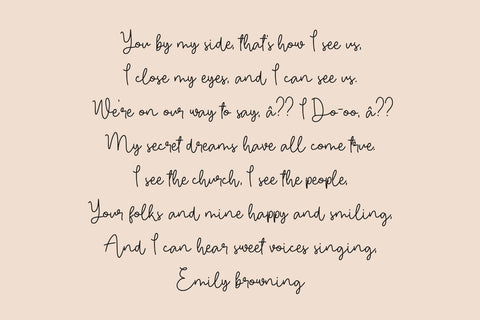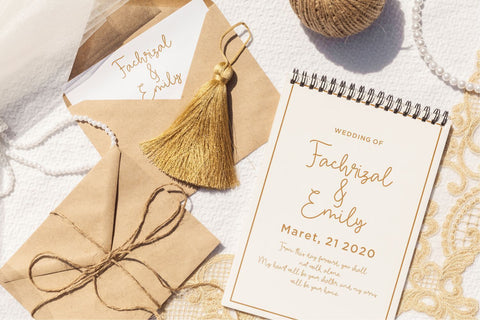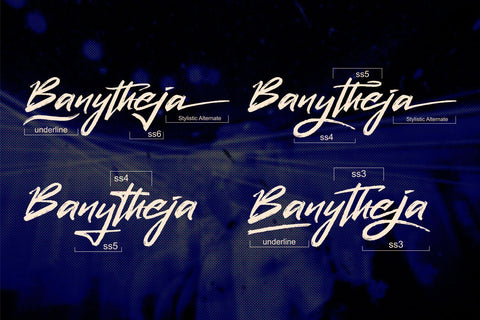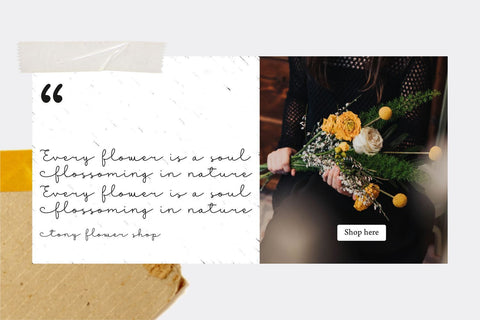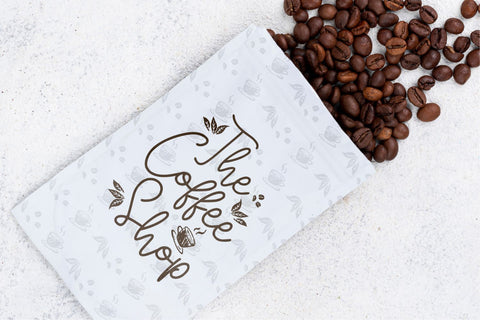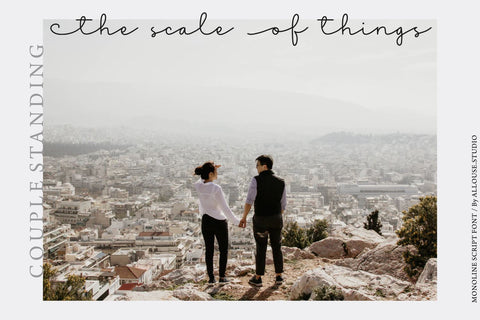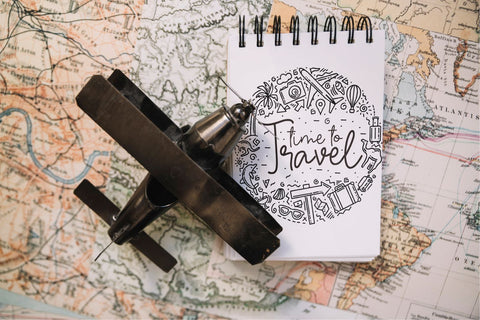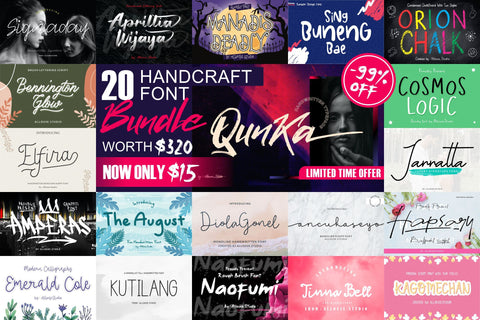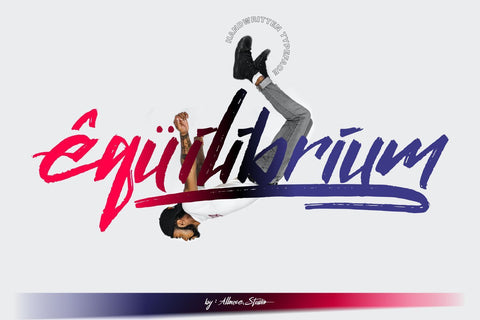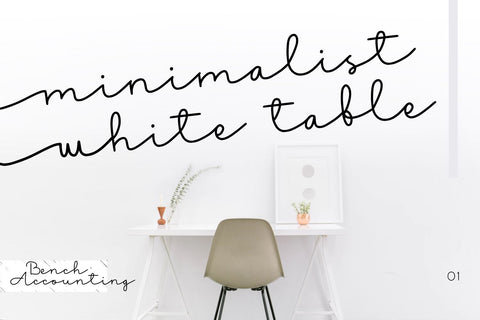
Handcraft Fonts Bundle 20 FONT
This is your chance to get all of my fonts for the super low $9 Includes 20 fonts worth for $280. This bundle includes a variety of font styles such as, calligraphy, signature, brush lettering, handwriting, and many more. with hundreds of glyphs, including alternatives, ligatures, swashes, and international language support.